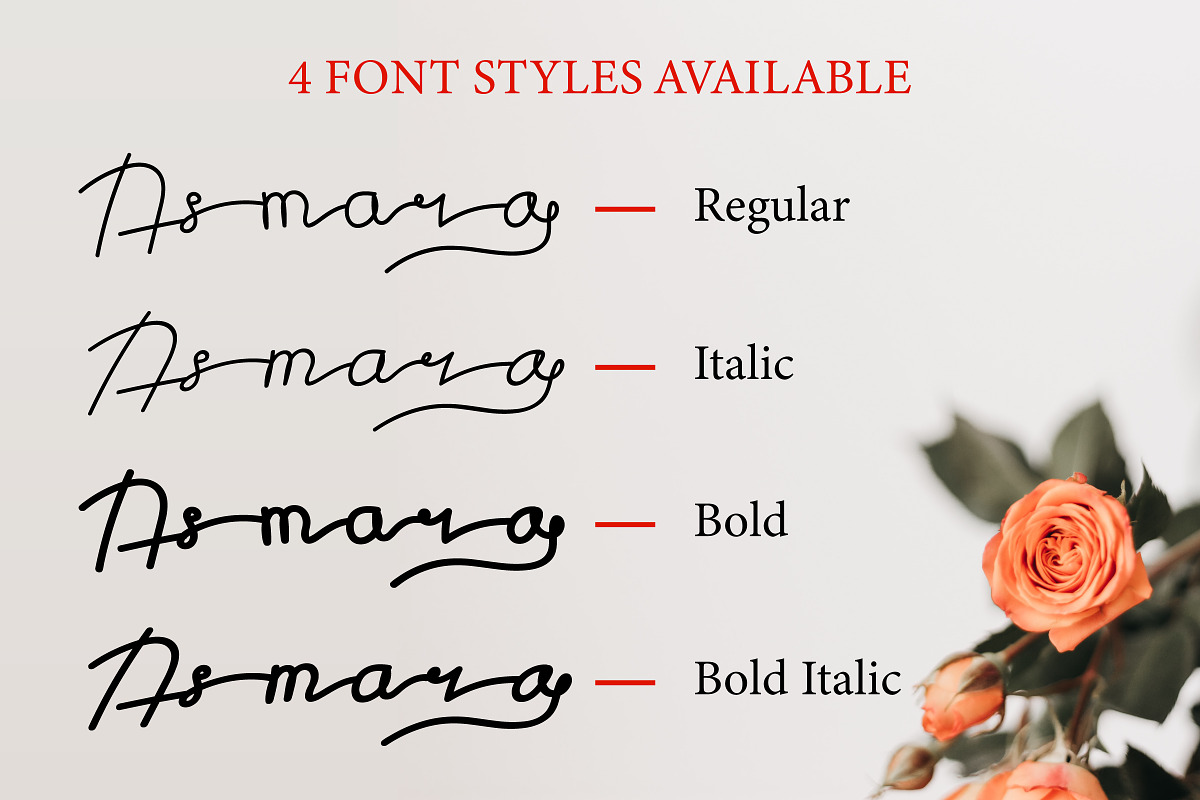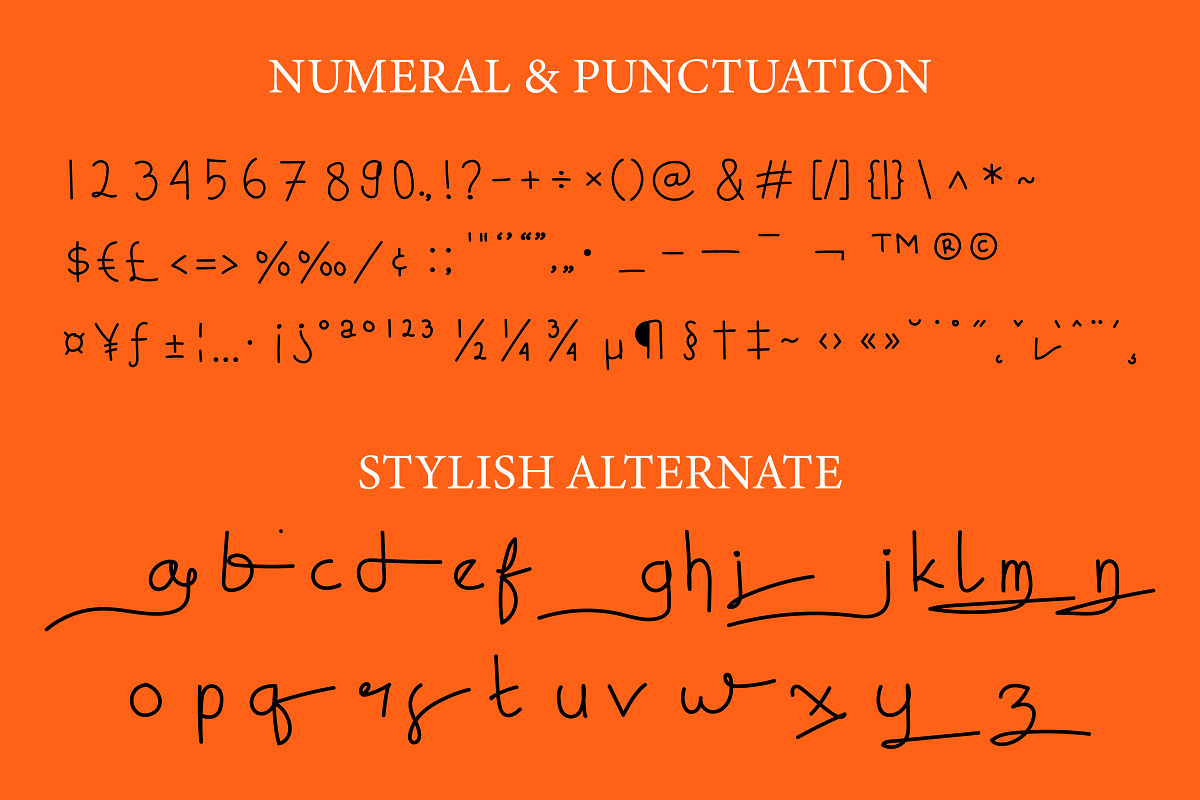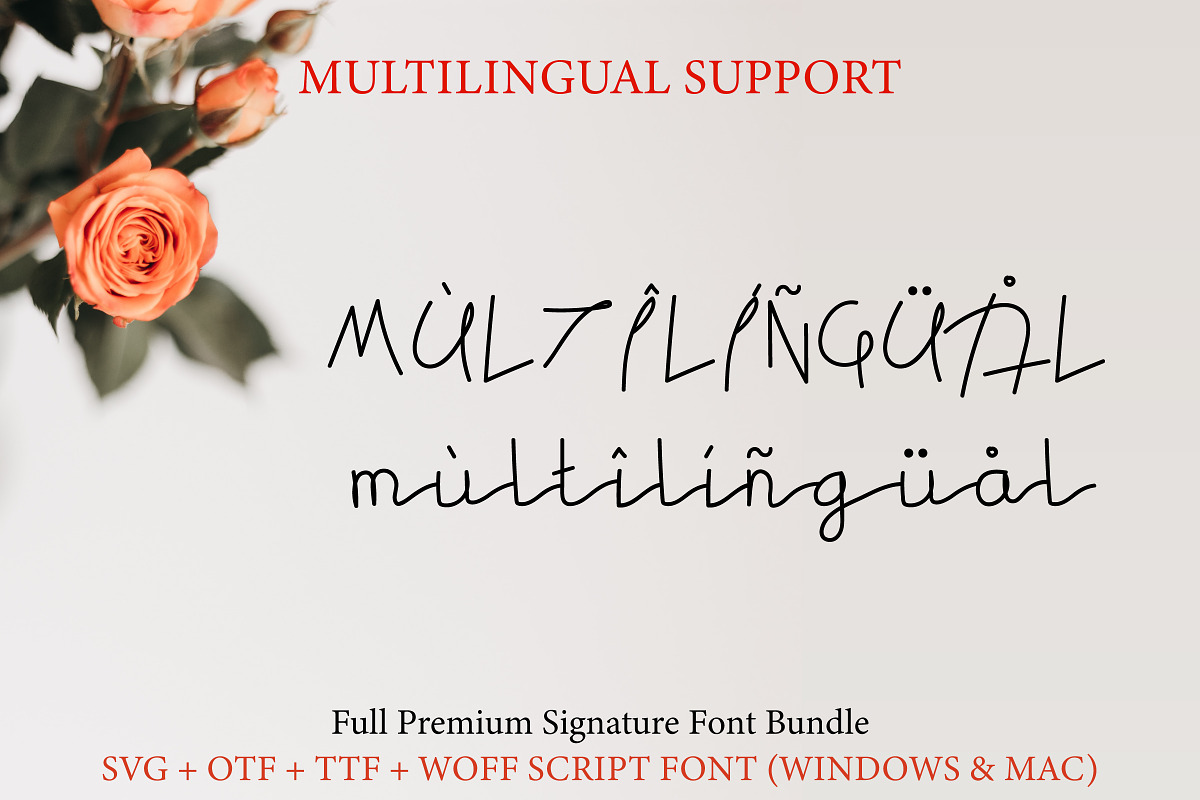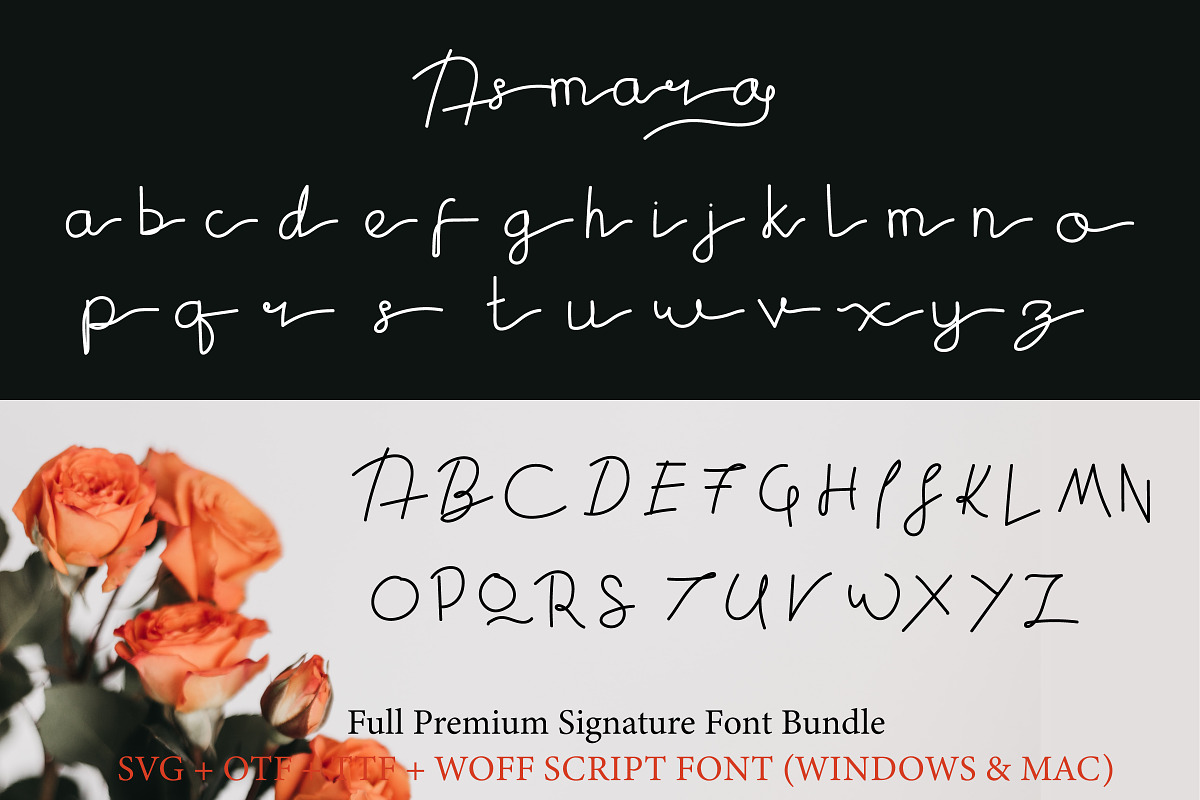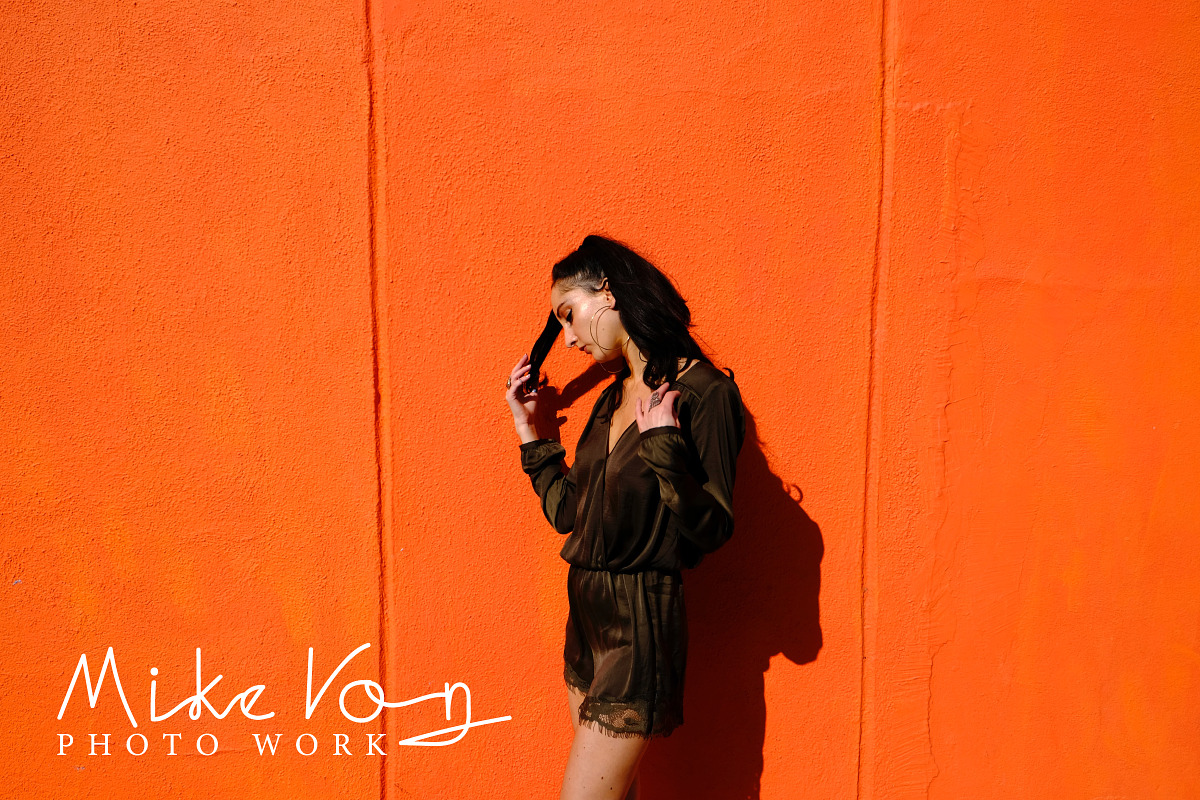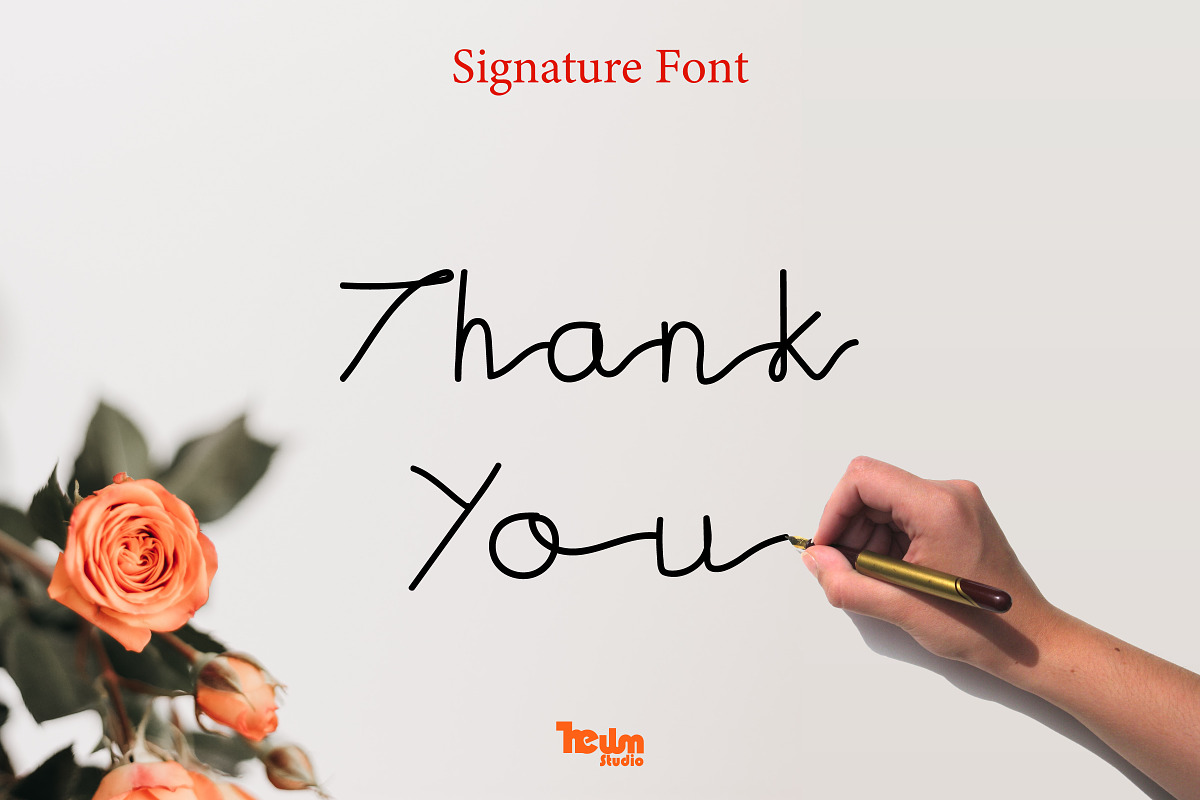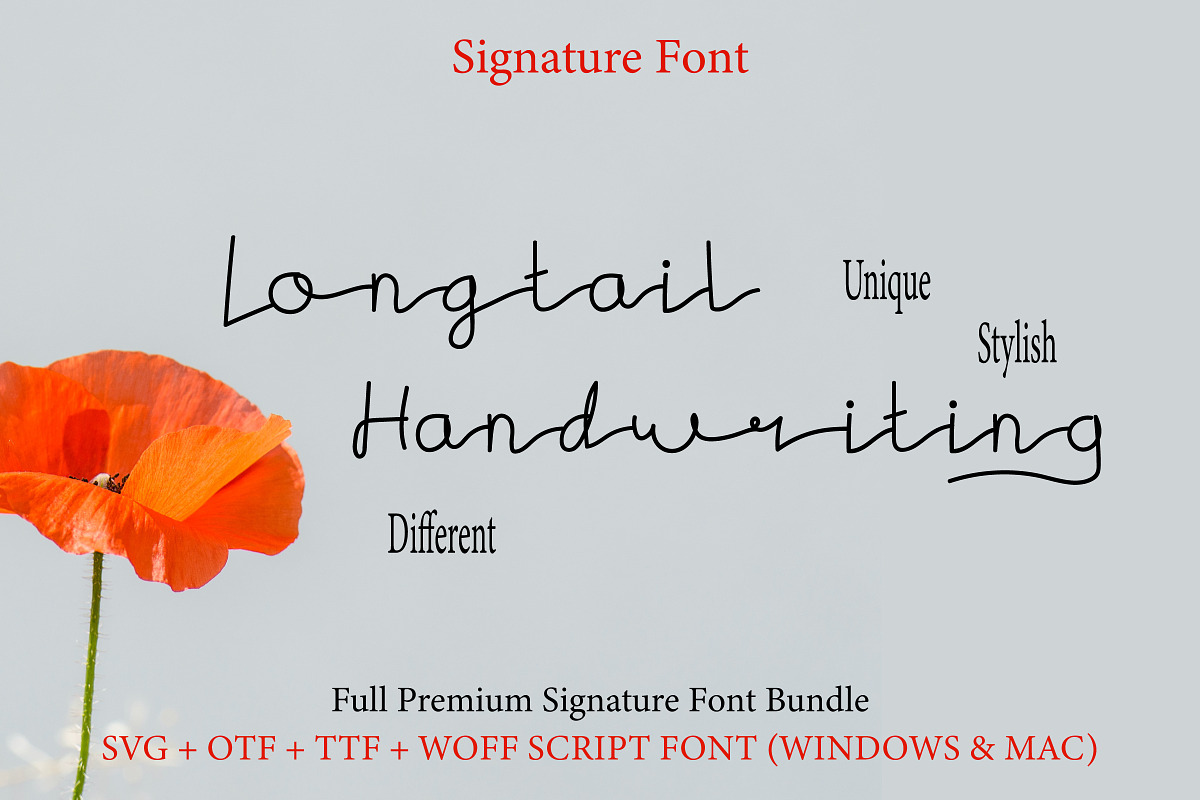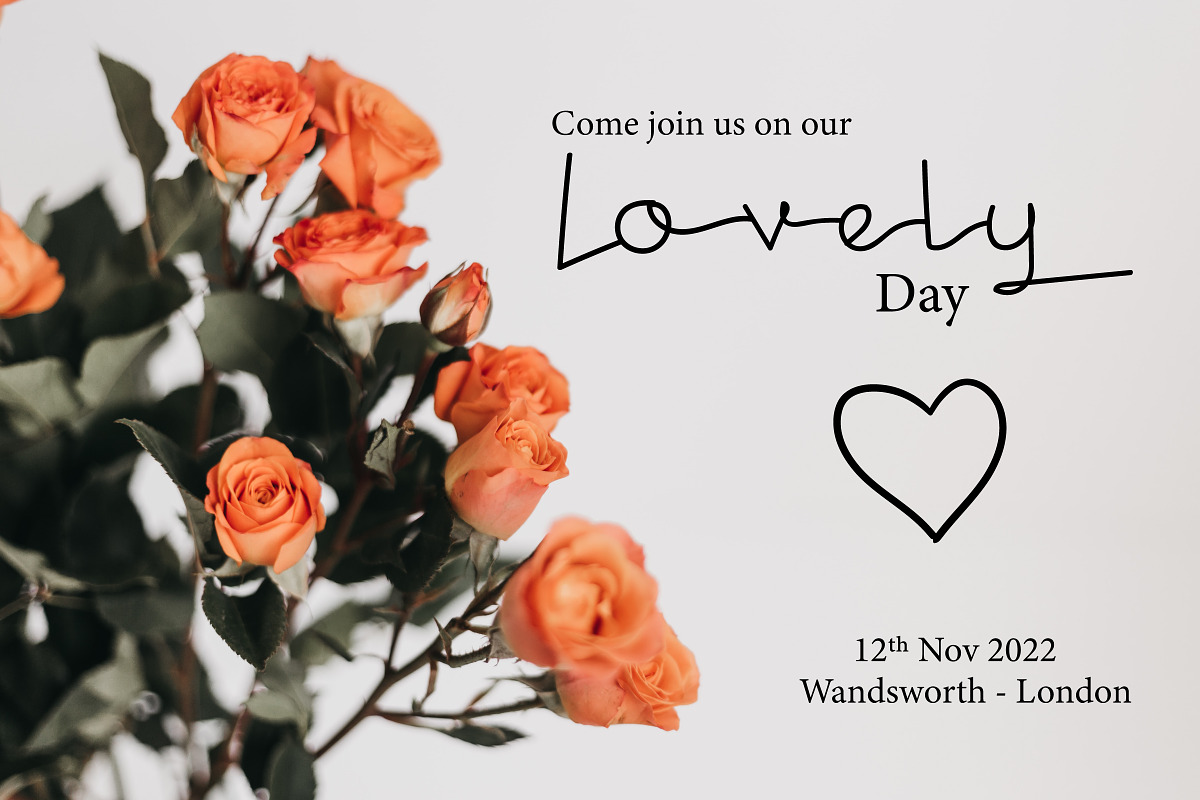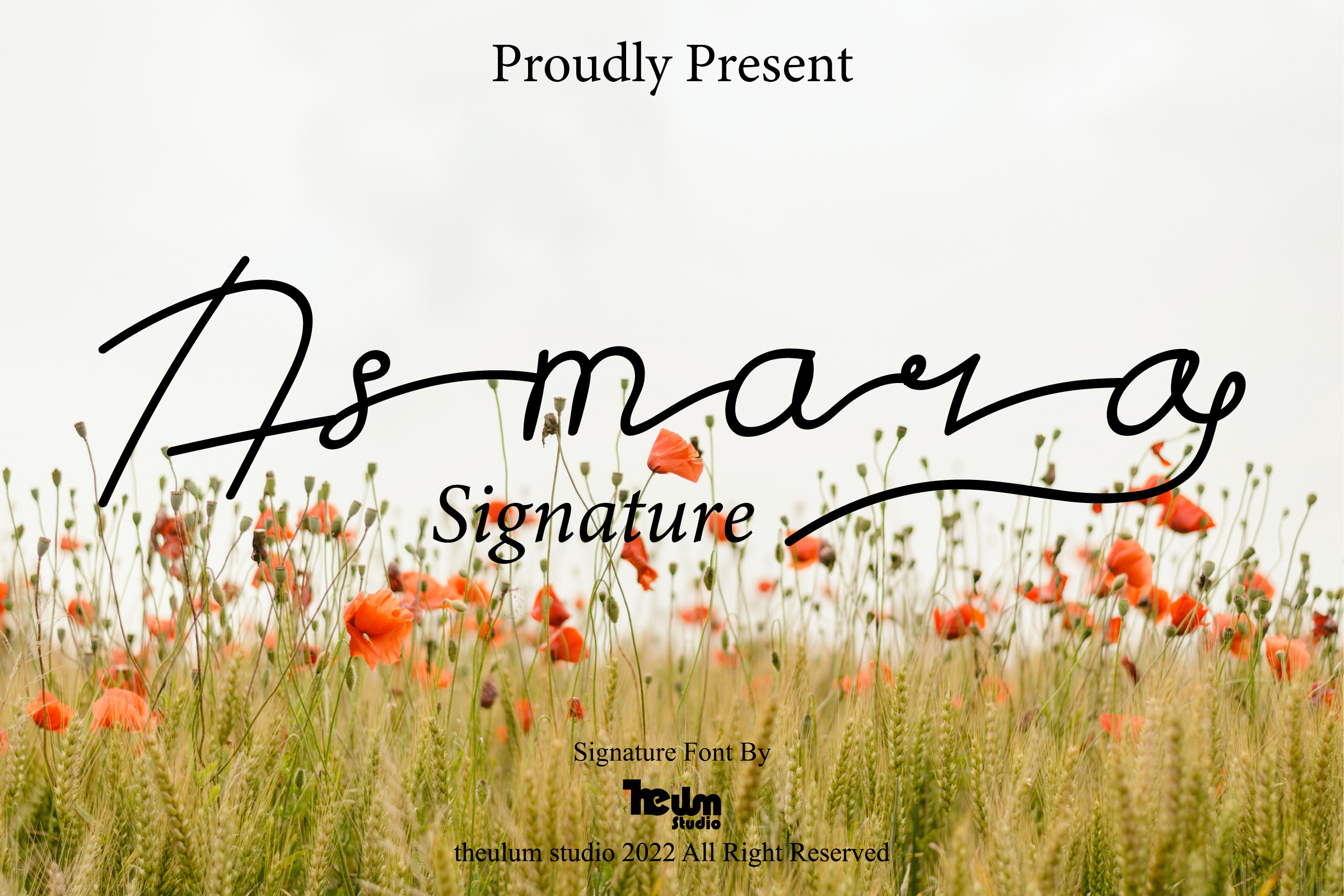
Asmara - Longtail Signature Font
Asmara comes from Bahasa Indonesia which means LOVE. This font inspired by every love couple in the world.
Asmara would perfect for photography, watermark, social media posts, advertisements, logos, branding, invitation, product designs, label, stationery, wedding designs, product packaging, special events or anything that need handwriting taste.
- Ton of glyphs (include Uppercase, Lowercase, Numerals & Punctuations, and available in Multilingual) --- Works on PC & Mac
- 4 font styles (Regular, Italic, Bold & Bold Italic)
- Longtail Ending
Digital handwritten font - Asmara Commercial Font is a sweet calligraphy-style. Beautiful on invitation like greeting cards, branding materials, business cards, quotes, posters, Cricut artwork and more!